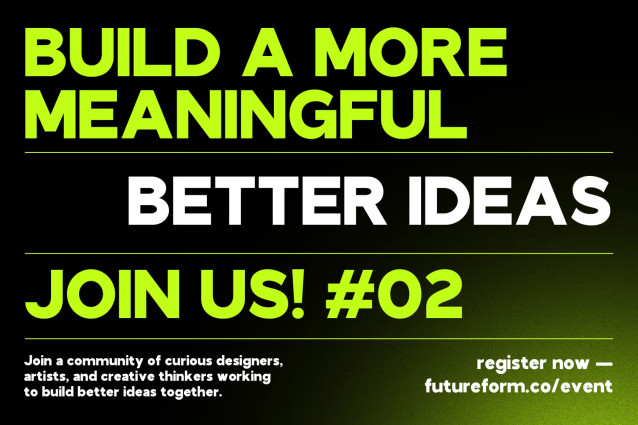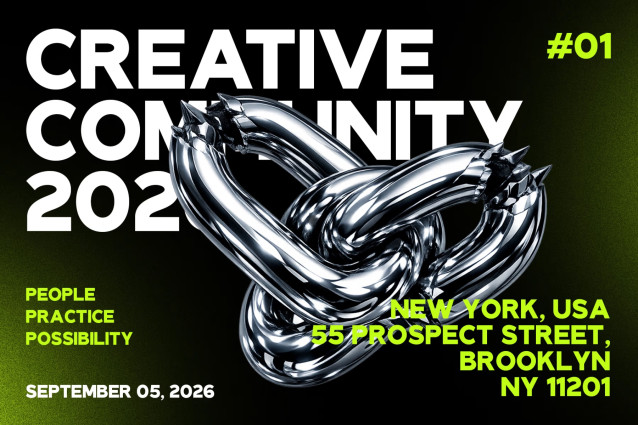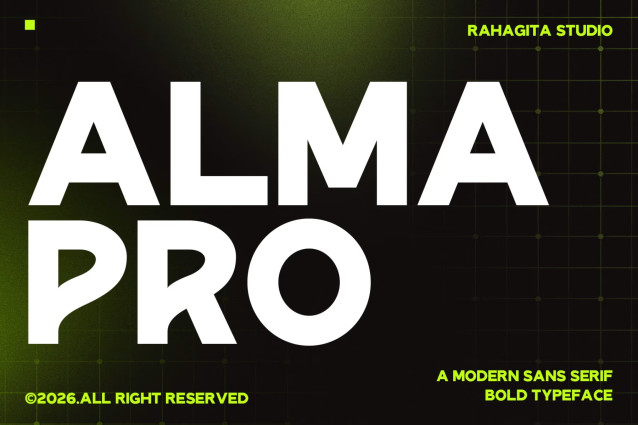
Alma Pro is a bold geometric sans-serif typeface built on a clean structure, soft curves, and a confident modern personality. Its heavy letterforms and compact proportions create a strong visual presence while maintaining excellent readability, making it a versatile choice for both display and functional use.